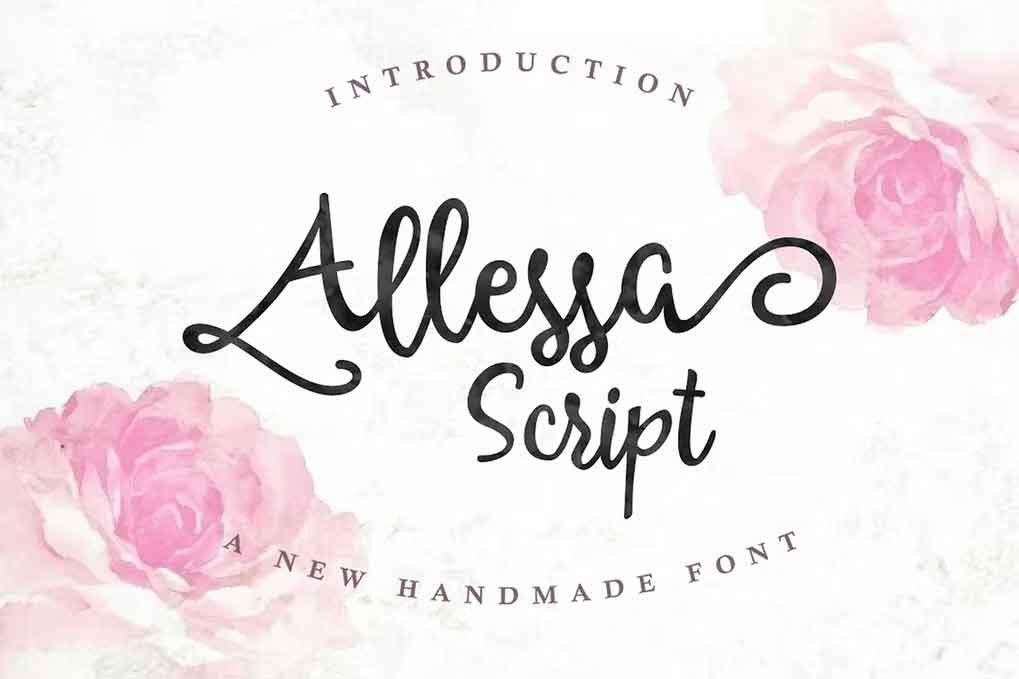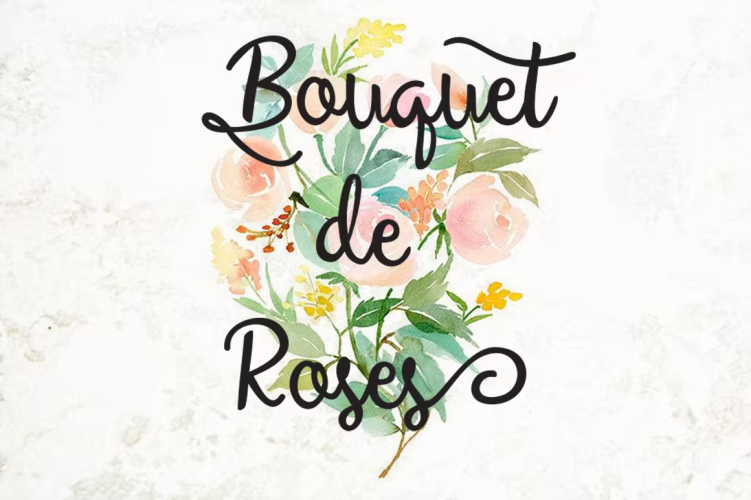
Allessa Script Font
Allessa Script is a beautiful handmade script give the natural looks. 312 glyphs and alternate character contain with opentype features. Stylistic alternates, Ligature, Swash and more. You can access all those alternate characters by using OpenType savvy programs such as Adobe Illustrator and Adobe InDesign.
Great for Apparel Brand, any greeting cards, book cover, Painting design style, or any design that needs natural and personal touch. Mix and match the alternate characters to add an attractive message to your design.
Allessa Script Font is a Script And Handwritten font that brings a professional and versatile look to your projects. Allessa Script is a beautiful handmade script give the natural looks.